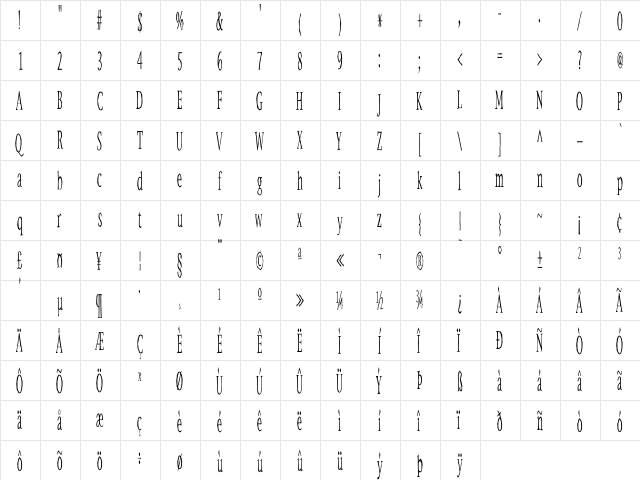
C Regular
Design Context for C Typeface
C takes a measured approach to typography — its balanced proportions and neutral character make it a reliable workhorse for both digital and print work.